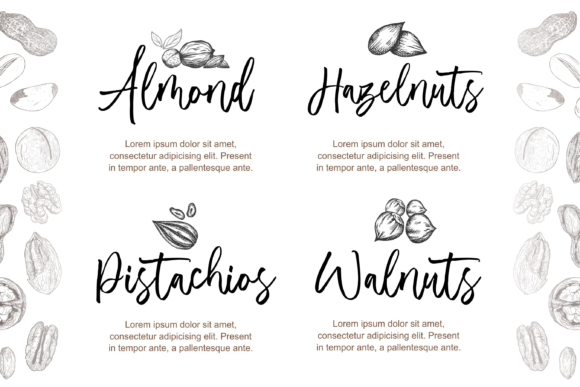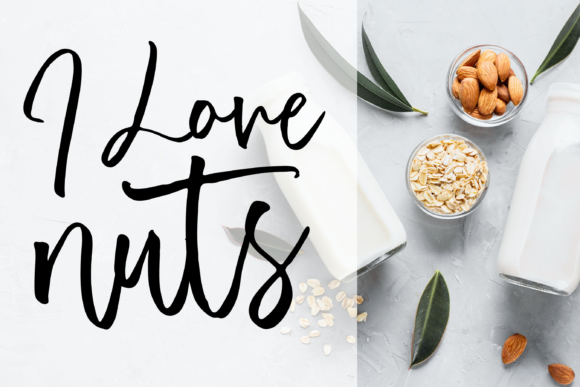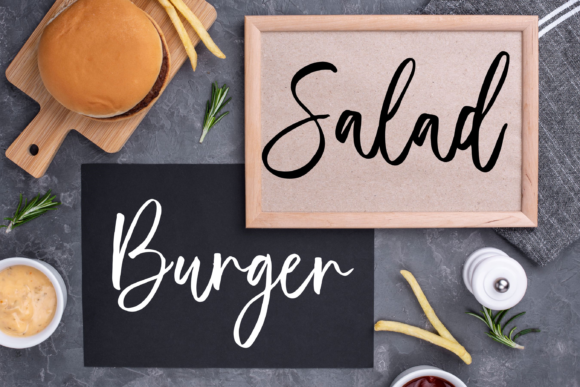
Introduction to Almonade Font
Almonade is a cute and casual handwritten font with an incredibly friendly feel.
Whether you’re looking for fonts for Instagram or calligraphy scripts for DIY projects, this font will turn any creative idea into a true piece of art .
Almonade Font offers exceptional quality and versatility, making it a valuable addition to your design toolkit. Whether you’re creating for personal projects or commercial use, Almonade Font delivers professional results.